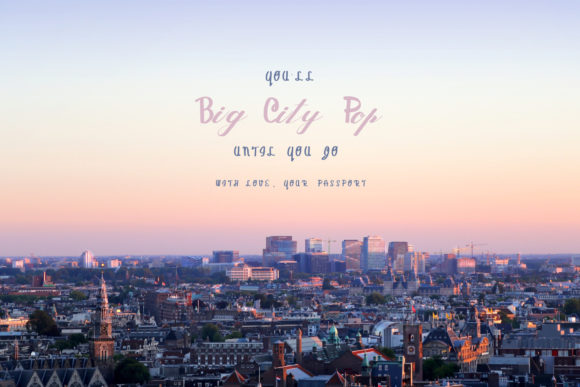
Journey into the world of elegance and sophistication with the captivating Big City Pop font! Crafted by the imaginative minds at AEKKARAT CREAT, this script font is a symphony of curves, flourishes, and charm. Each letter dances across the page, reminiscent of a handwritten note penned with passion and artistry. As a web designer, you'll be smitten with its compatibility, making it the perfect choice for adding a touch of class to your digital creations.
Big City Pop is more than just a font; it's an experience. Its contemporary and fresh style breathes life into your designs, whether you're crafting logos, invitations, branding materials, or simply seeking to elevate your social media posts. Unleash your creativity and watch as this font transforms your projects into works of art.
Dive into the endless possibilities of Big City Pop and discover why it's among the best fonts for web design in 2016. Its versatility knows no bounds, allowing you to effortlessly adapt it to a multitude of design aesthetics. From chic and timeless to bold and modern, Big City Pop is the ultimate chameleon, ready to adapt and impress in any context.
With Big City Pop, you'll capture the attention of your audience and leave a lasting impression. Its unique character adds a touch of personality and allure to your designs, making them stand out from the mundane. Elevate your projects to new heights and embrace the power of Big City Pop. Experience the magic for yourself and witness the transformation as your designs take on a life of their own.